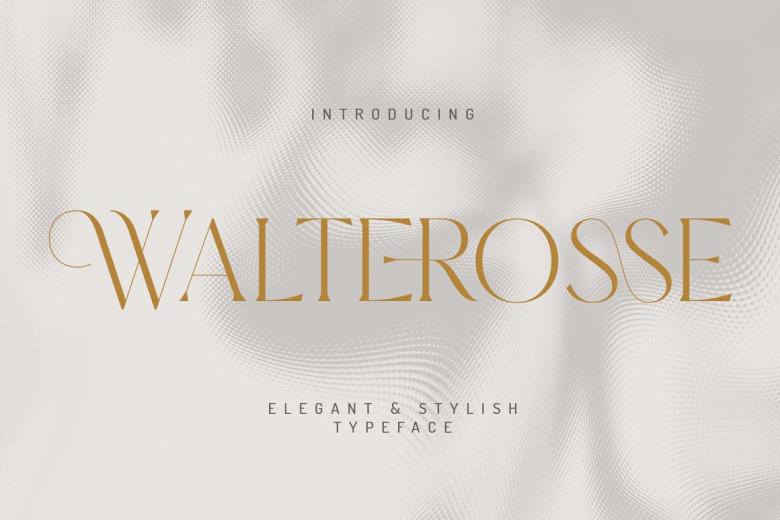
Walterosse Font
Walterosse Serif Font– elegant stylish display serif. It’s a special kind of font, where the ligatures made the letters to transition smoother. Excellent for a quirky refresh of different styles such as word-mark logos, monograms or pull quotes.
Walterosse Serif Font